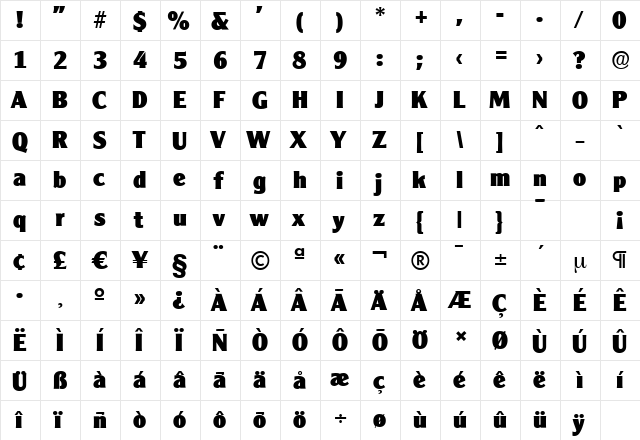
ClearGothicSerial-Heavy Regular
Design Context for ClearGothicSerial-Heavy Typeface
ClearGothicSerial-Heavy has the quiet confidence of well-executed sans-serif typography: versatile, unobtrusive, and dependable at any size.
Font Pairing: Works well alongside a characterful serif or display font that can carry the expressive load while ClearGothicSerial-Heavy handles the functional copy.
Pro Tip: Use ClearGothicSerial-Heavy for UI labels, navigation, and short-form body copy where clean legibility is the priority.